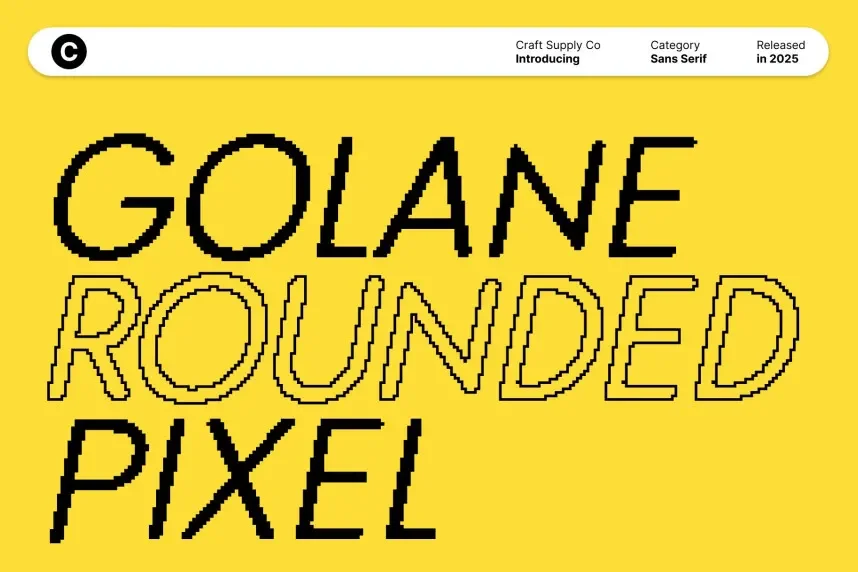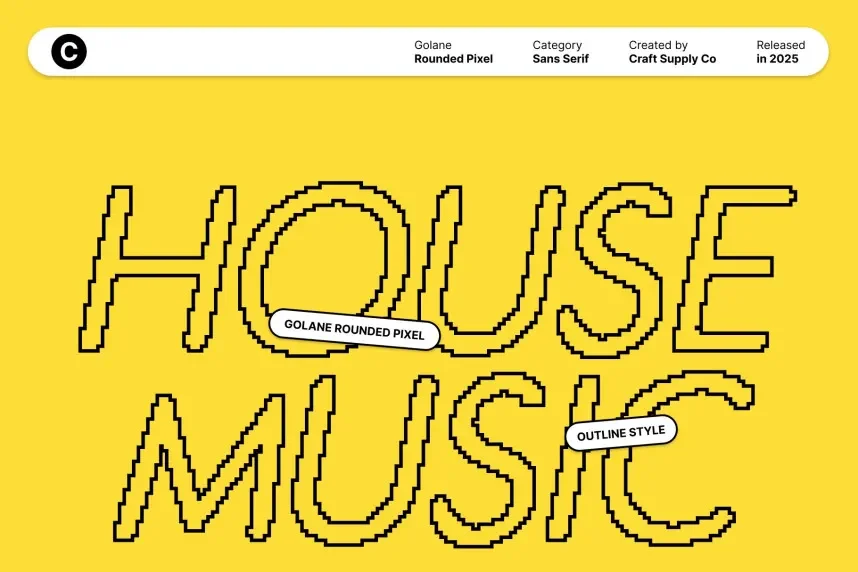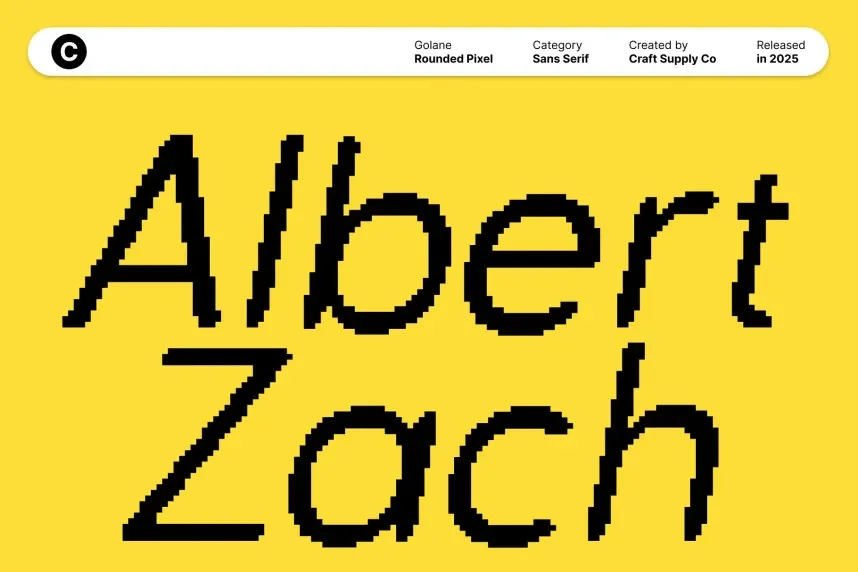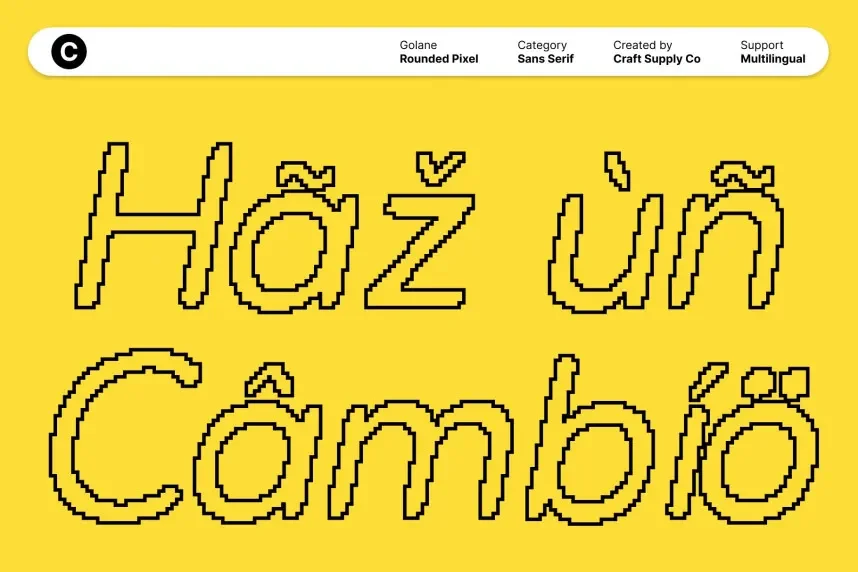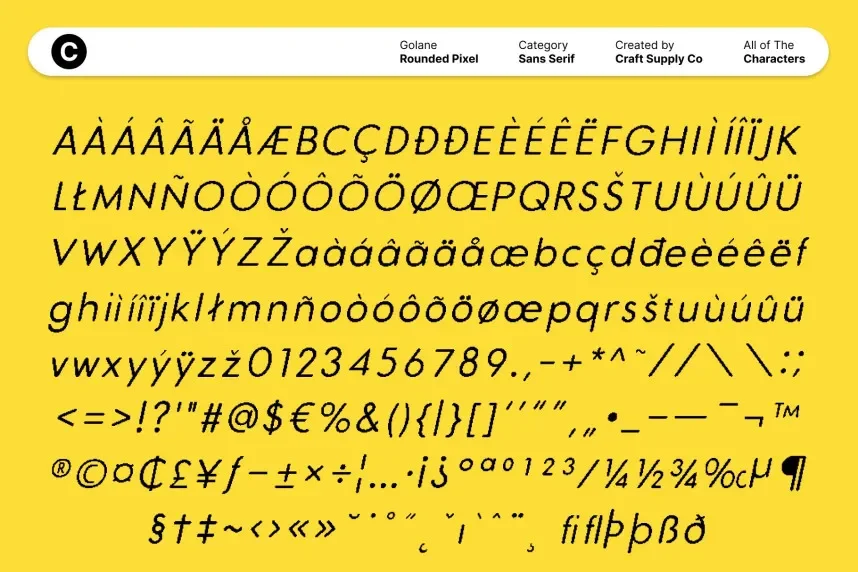
Golane Rounded Pixel Font combines the sharpness of a pixelated design with the smoothness of rounded corners. It’s ideal for projects that need a balance between a techy feel and a friendly, approachable look, such as mobile apps and gaming interfaces.
Best used for logos, website headers, and digital art, Golane Rounded Pixel Font pairs well with clean, modern fonts for contrast. Available in TTF and OTF formats, it includes a commercial-use license. Always check the license for commercial use before implementation.